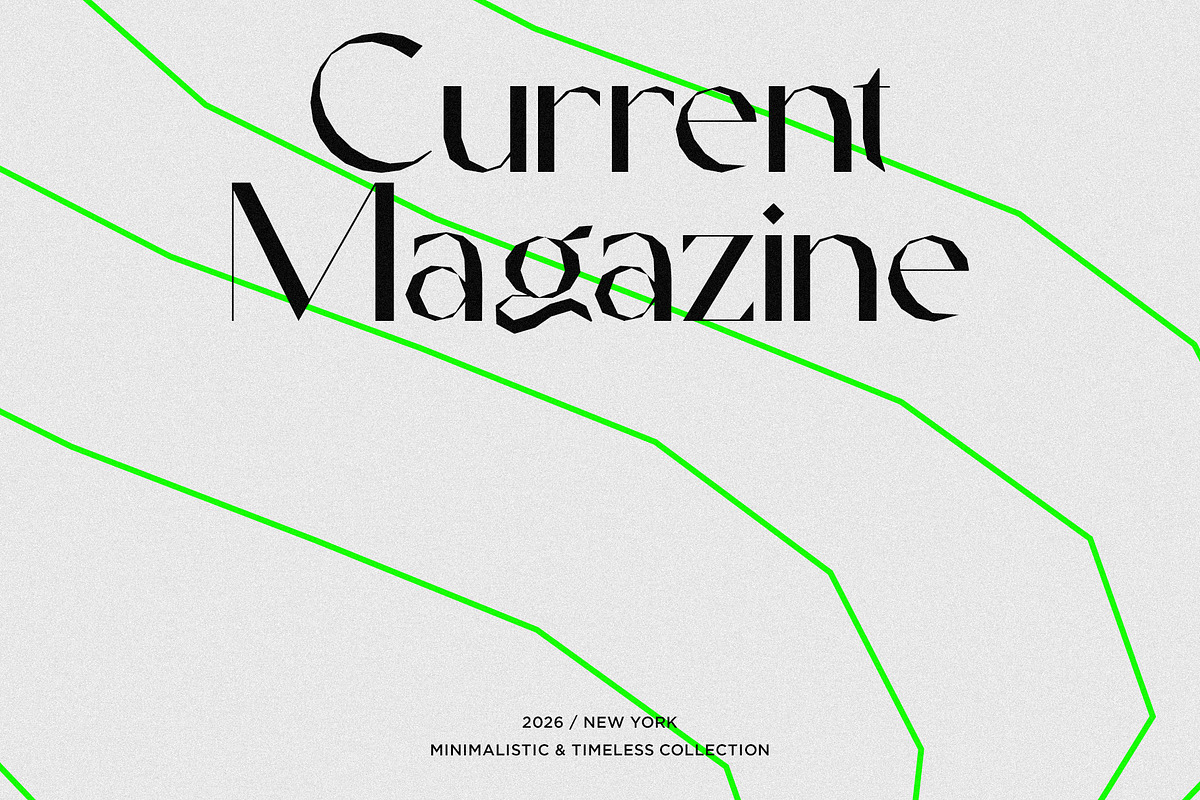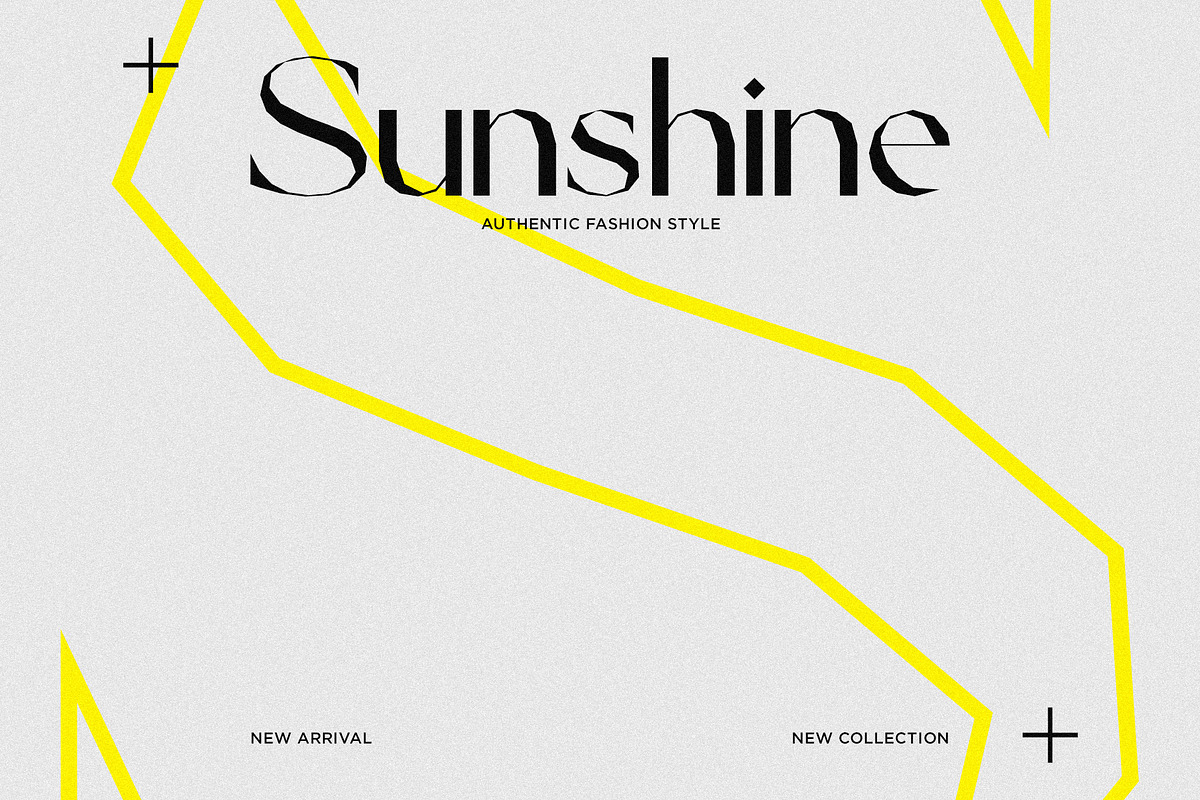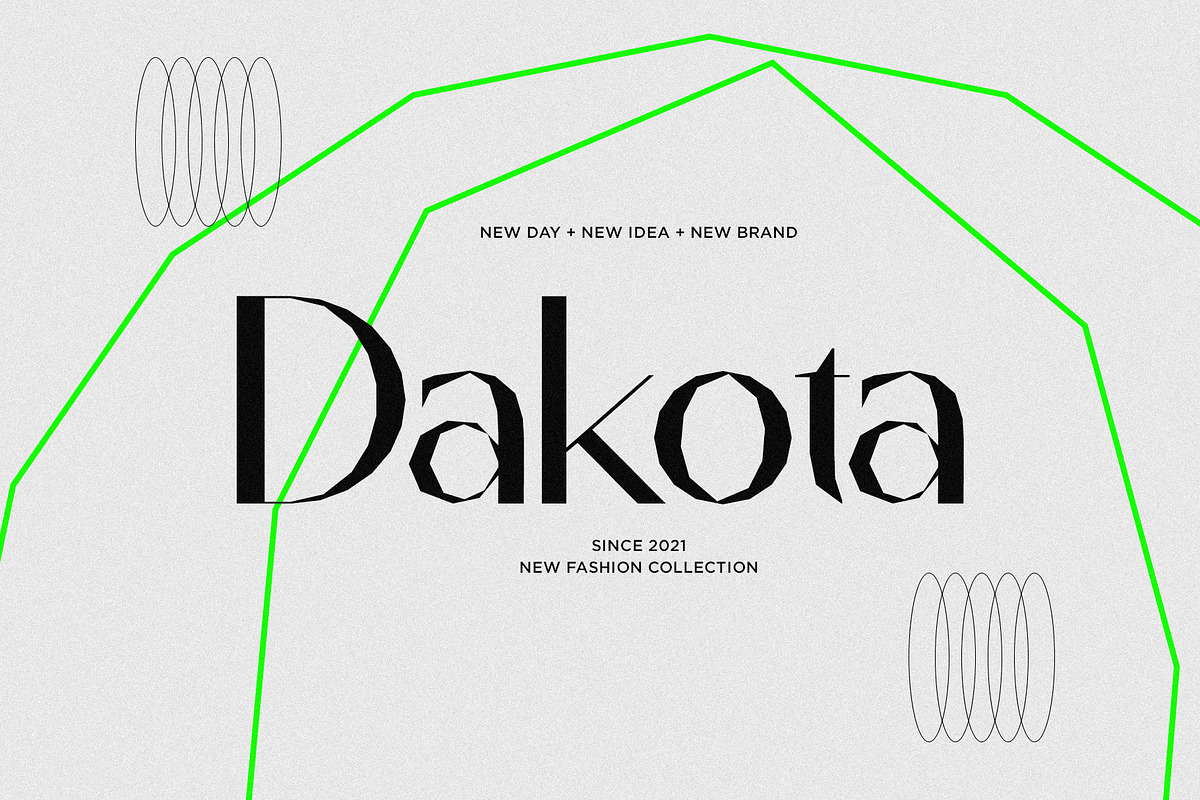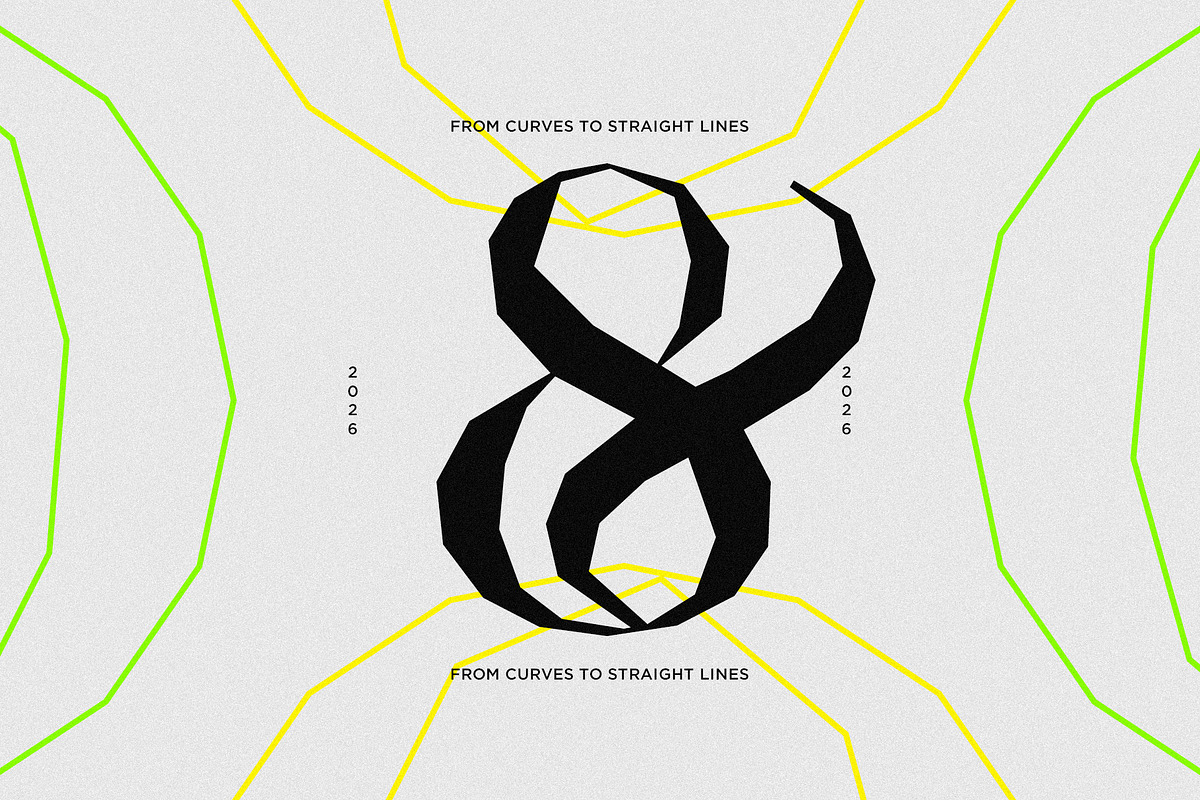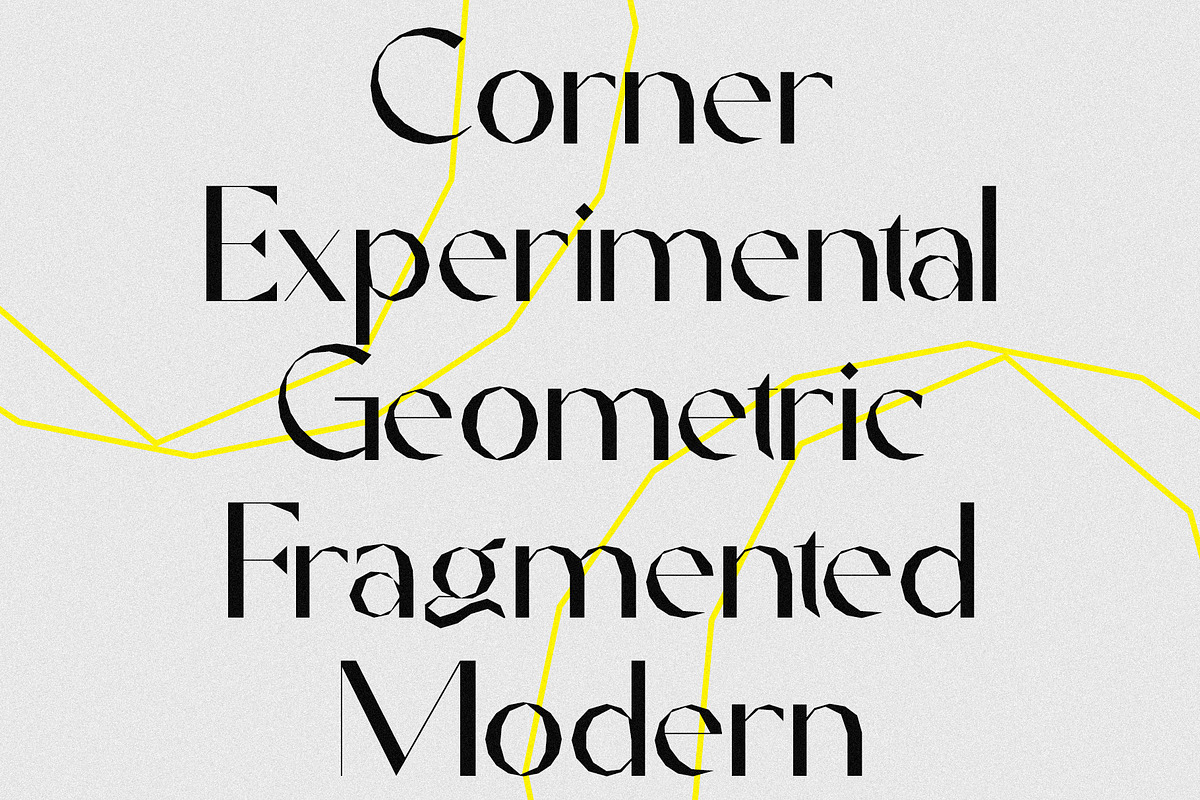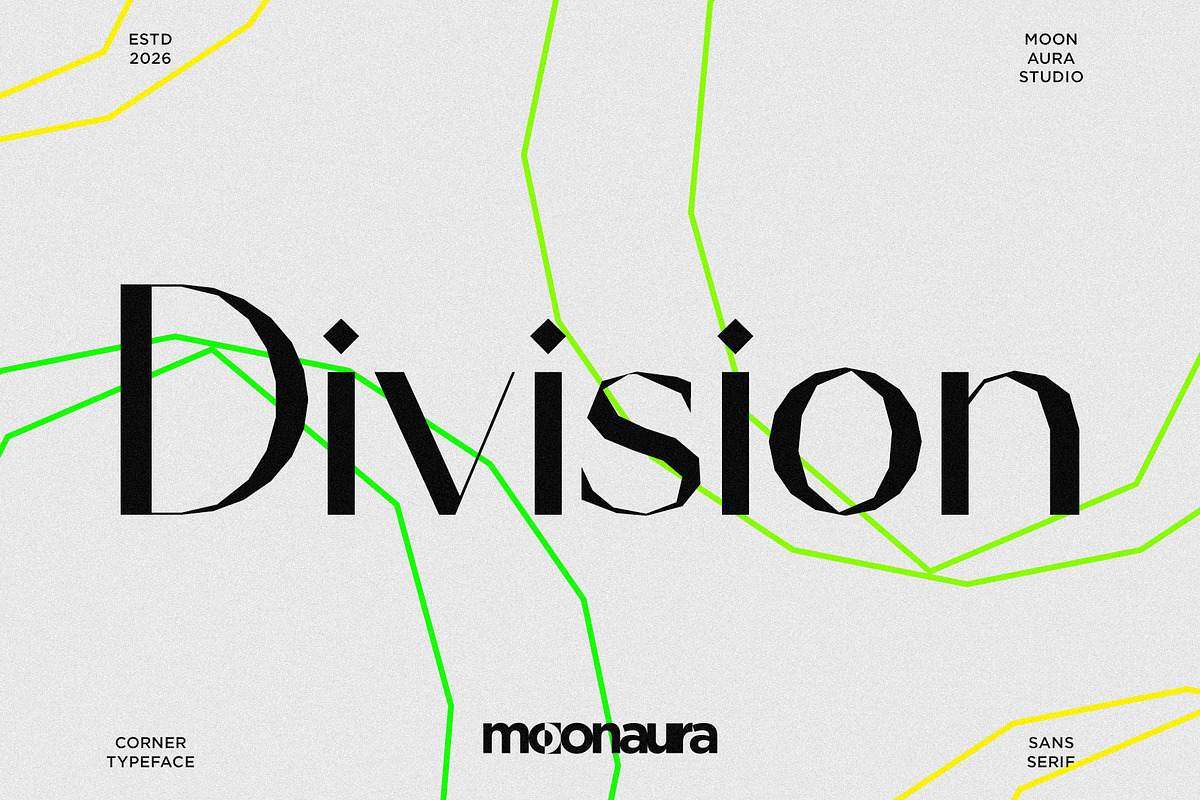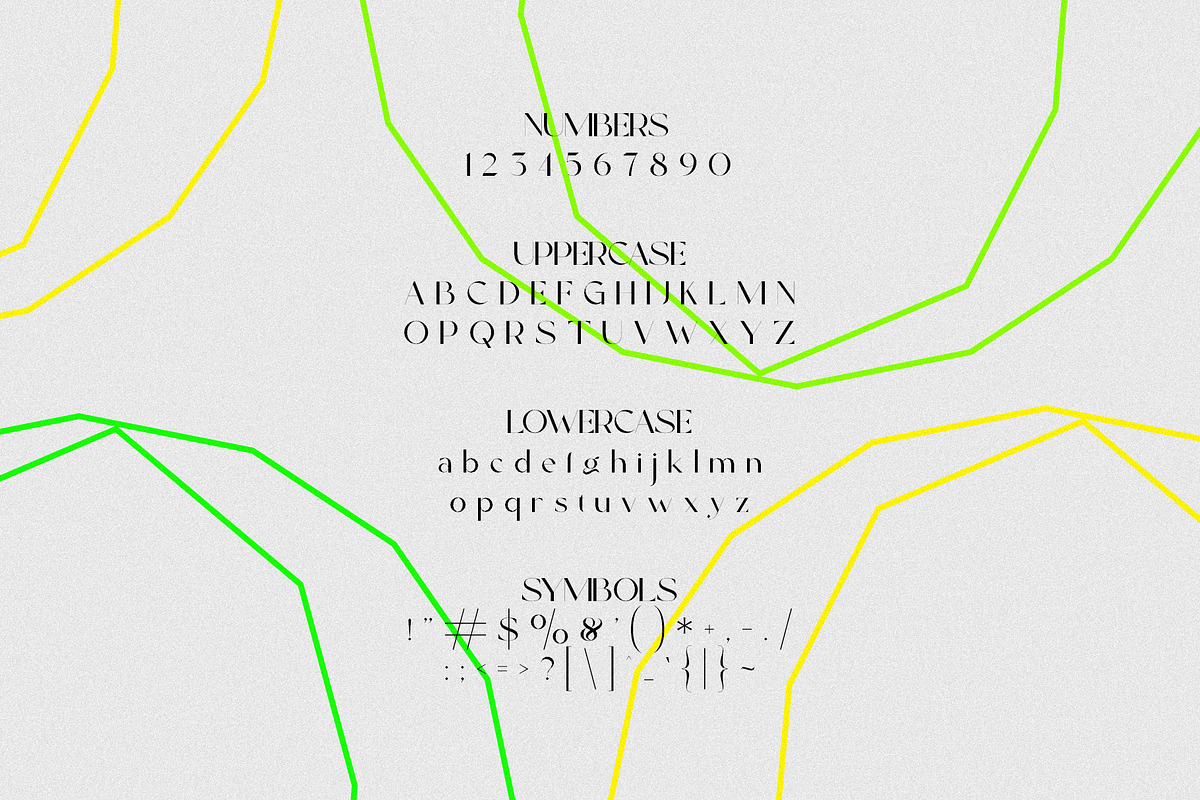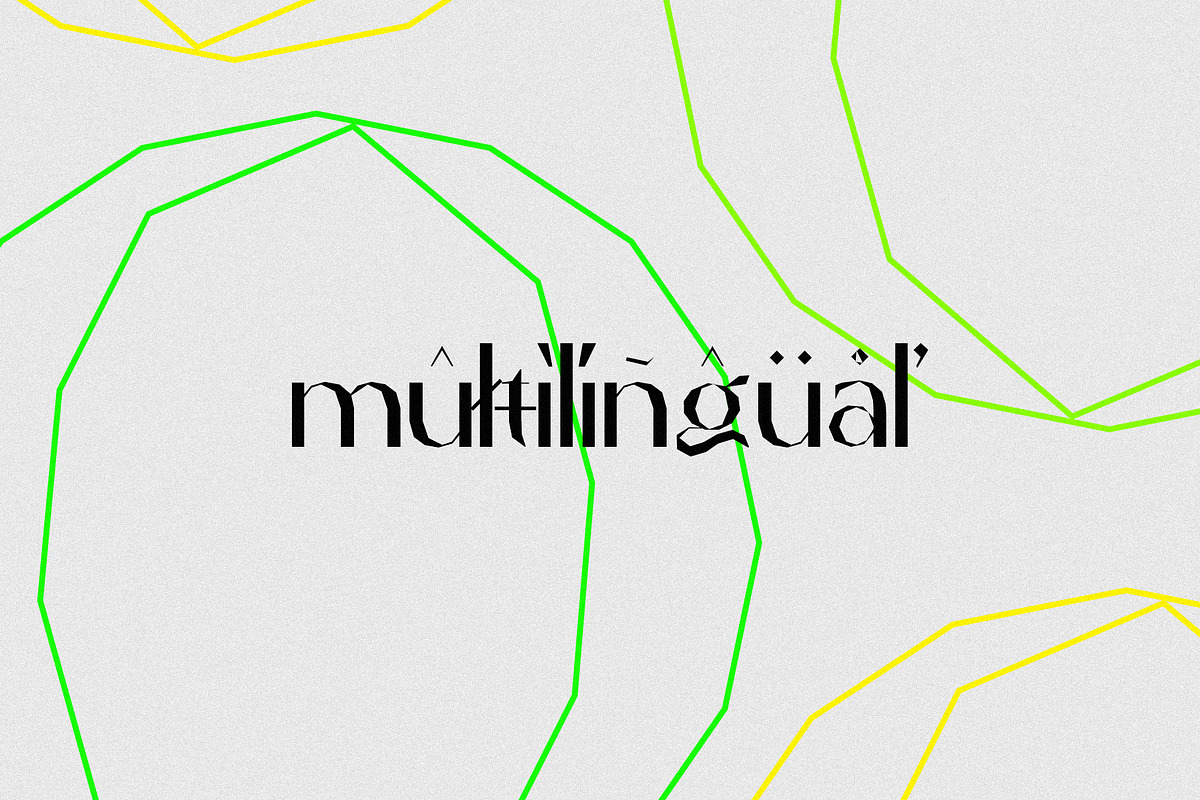
Division - Corner & Geometric Sans
Division is a modern geometric sans with confident corners and disciplined structure. Built on precise geometry and sharpened by subtle angular cuts, it balances technical clarity with visual attitude. The cornered details add tension and character without sacrificing legibility, making Division feel bold, contemporary, and intentional. Designed for branding, editorial, and interface use, Division performs just as well at large display sizes as it does in tight layouts. Its rhythm is controlled, its forms are assertive, and its personality sits right between engineered and expressive - perfect for projects that need to feel sharp, modern, and unmistakably designed.